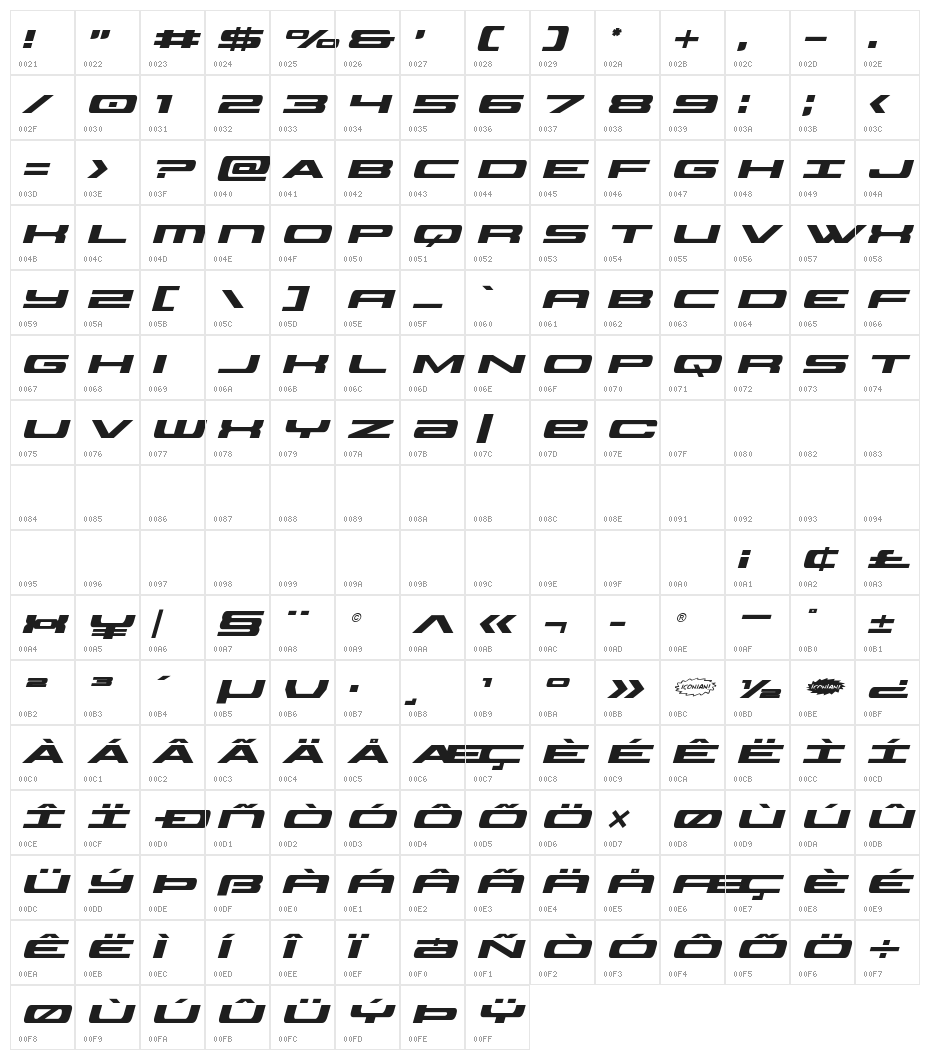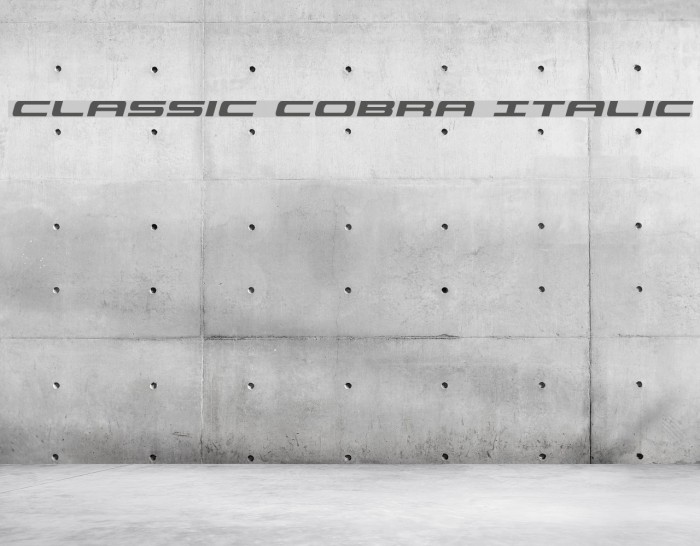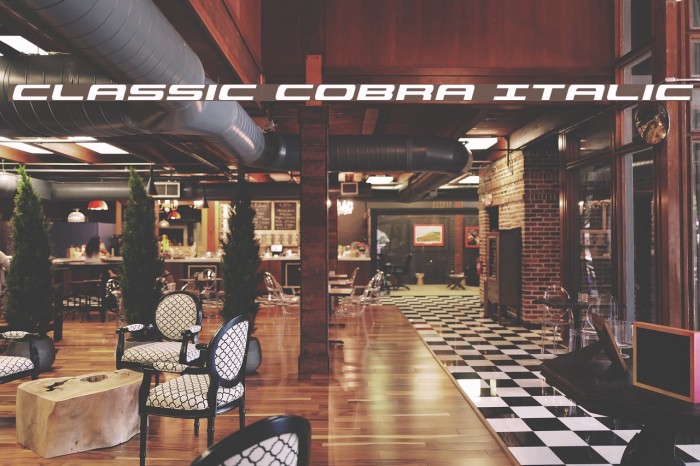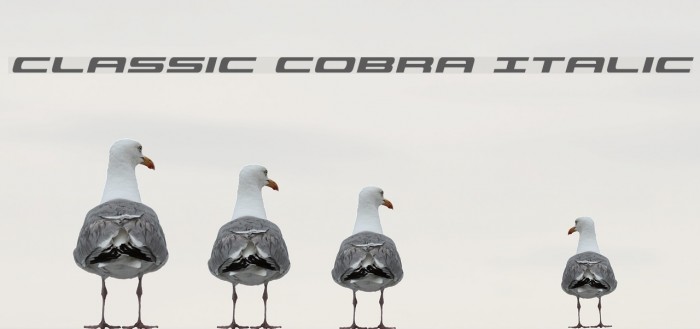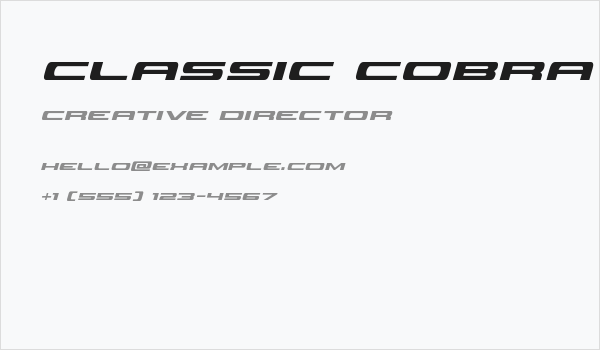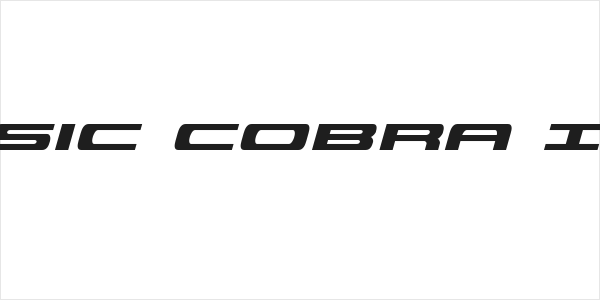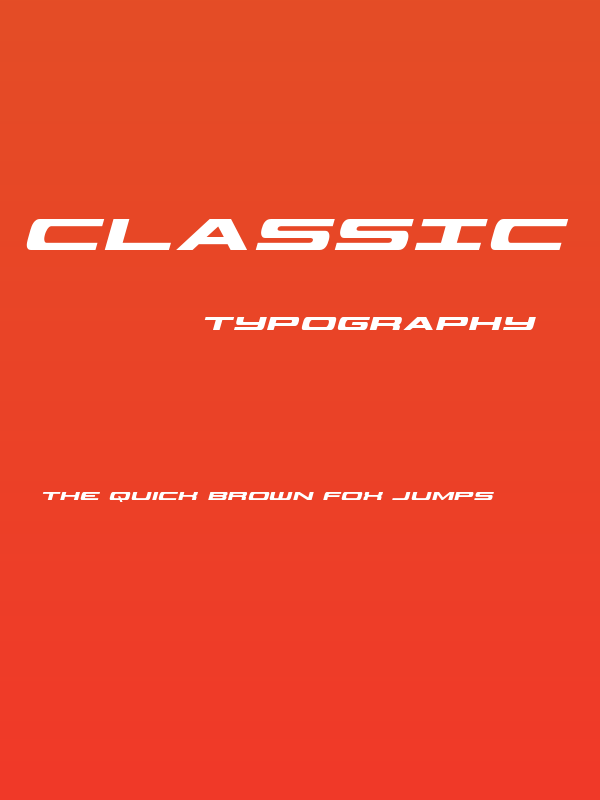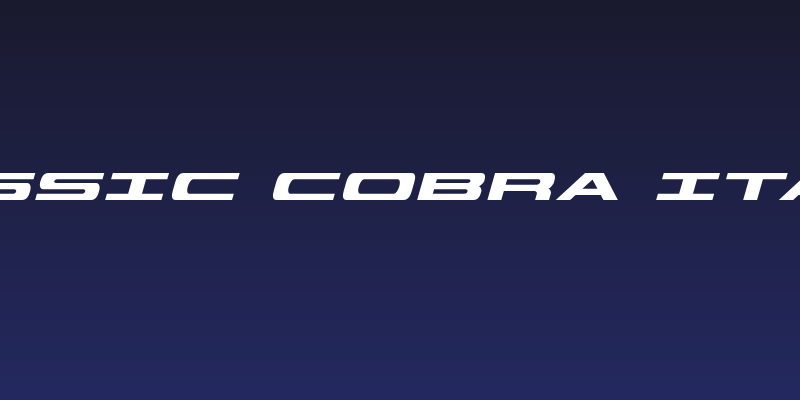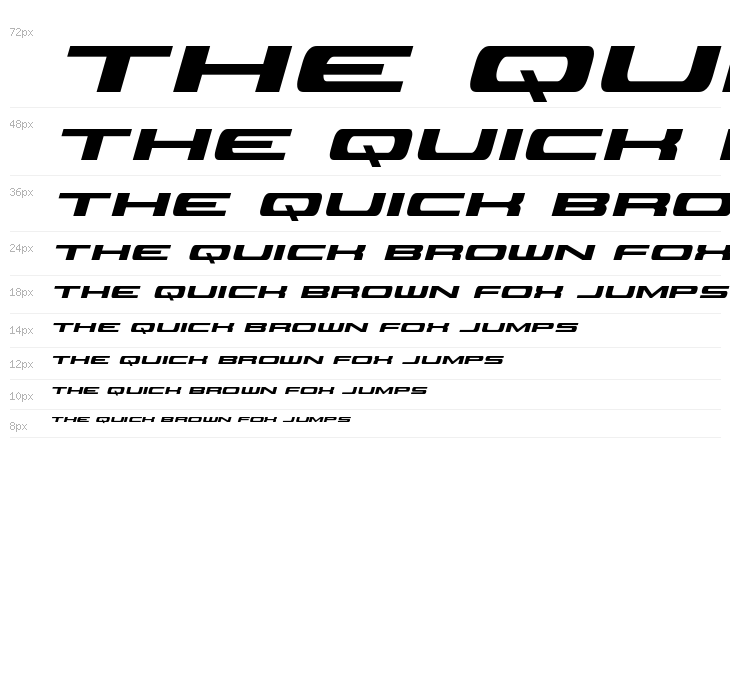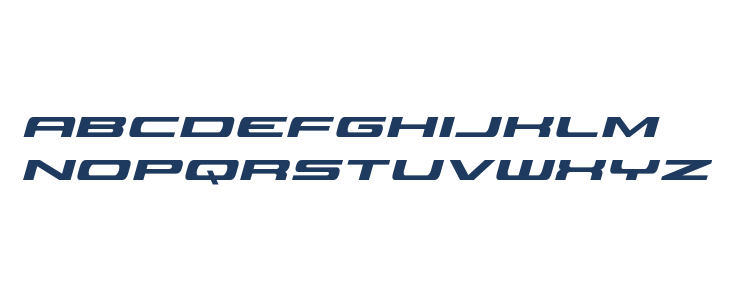
Classic Cobra Italic Font
Classic Cobra Italic Description
This font features a sleek, italicized design with a modern and dynamic appearance. The characters are slightly slanted, giving a sense of motion and speed. The strokes are uniform and bold, with a consistent thickness that enhances readability. The overall style is futuristic, making it suitable for projects that require a contemporary and energetic look. The spacing between characters is normal, ensuring clarity and legibility. The font includes a full set of uppercase and lowercase letters, numbers, and a variety of special characters, making it versatile for different design needs.
| Use Case | Logos, Headlines, Branding |
| Proposed Projects | Ideal for automotive branding, sports team logos, tech product packaging, and dynamic website headers. |